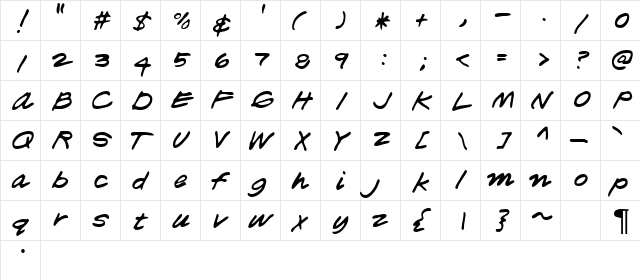
Ad Executive Regular
Design Context for Ad Executive Typeface
Ad Executive is a composed and adaptable typeface that performs quietly and consistently across a wide range of design contexts.